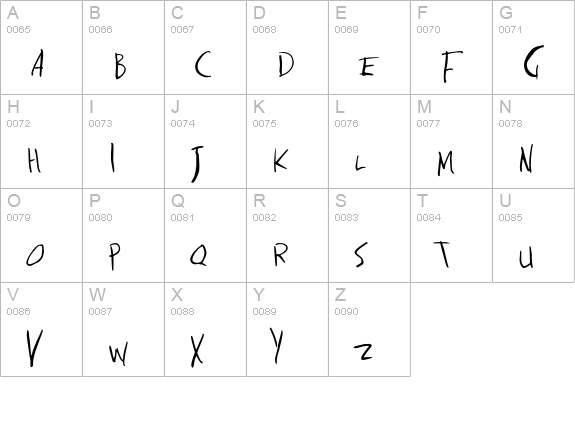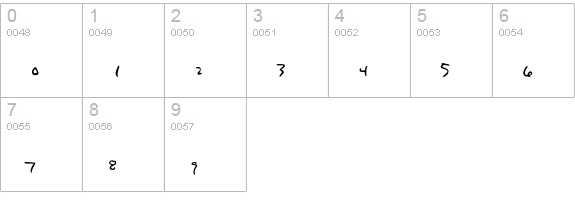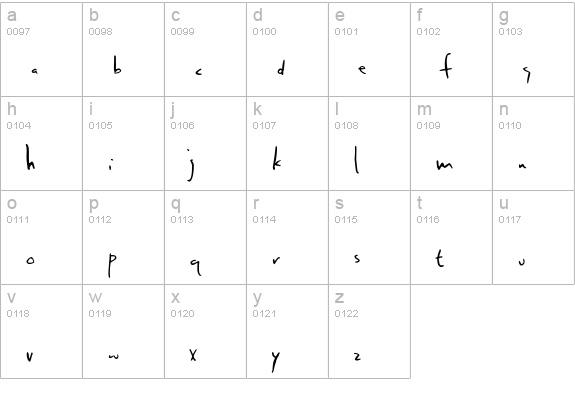
Rats-Alternate Font Details
Introducing Rats-Alternate, a mesmerizing font that effortlessly blends edginess with elegance. With its unique and captivating design, this font is sure to make a lasting impression in any creative project. Rats-Alternate offers a refreshing twist to traditional typography, featuring beautifully crafted letterforms that exude individuality and character. Each curve and stroke is carefully crafted, resulting in a font that is both visually striking and incredibly versatile. What sets Rats-Alternate apart is not just its stunning aesthetics, but also its accessibility. We believe that creativity should be freely expressed, which is why we are thrilled to offer Rats-Alternate as a free download at FontsMarket.com. Now, you can enhance your designs and projects without any limitations or barriers. Whether you're designing a logo, creating an eye-catching poster, or adding a touch of flair to your website, Rats-Alternate is the perfect choice. Its flexibility allows it to seamlessly adapt to any design style, effortlessly complementing and elevating your creative vision. Embrace the artistic possibilities that Rats-Alternate brings to the table. Download this captivating font for free at FontsMarket.com and unlock a world of endless design opportunities. Let your imagination run wild and watch as Rats-Alternate takes your projects to new heights.